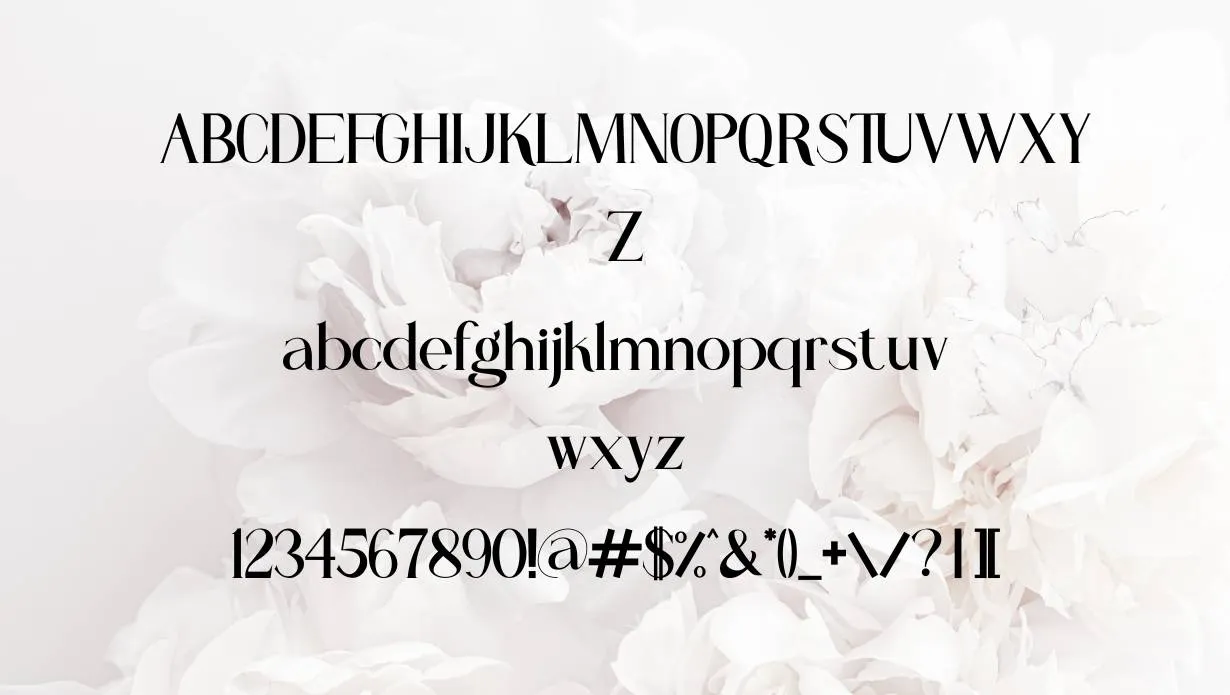
Sandy King Font offers a laid-back and beachy feel, making it a great choice for designs that embrace a relaxed vibe. The font’s casual yet stylish characters add a touch of personality to your projects.
| Name | Sandy King Font |
| Designer | StringLabs |